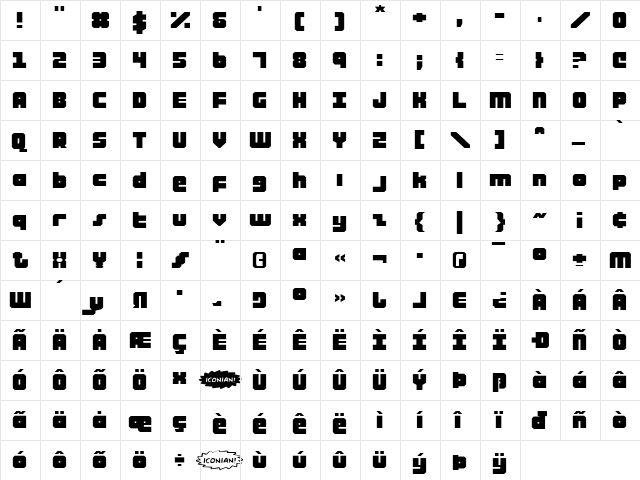
Alpha Taurus Expanded Expanded
Design Context for Alpha Taurus Expanded Typeface
Alpha Taurus Expanded is a composed and adaptable typeface that performs quietly and consistently across a wide range of design contexts.